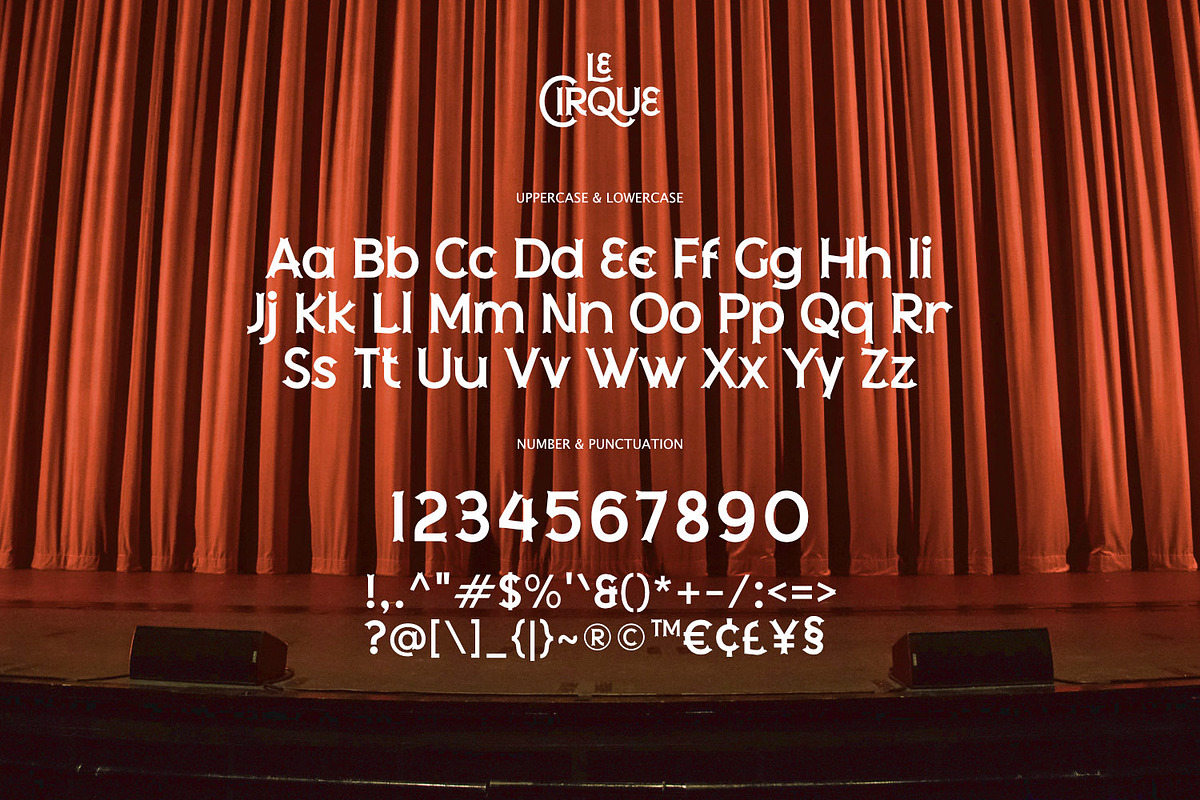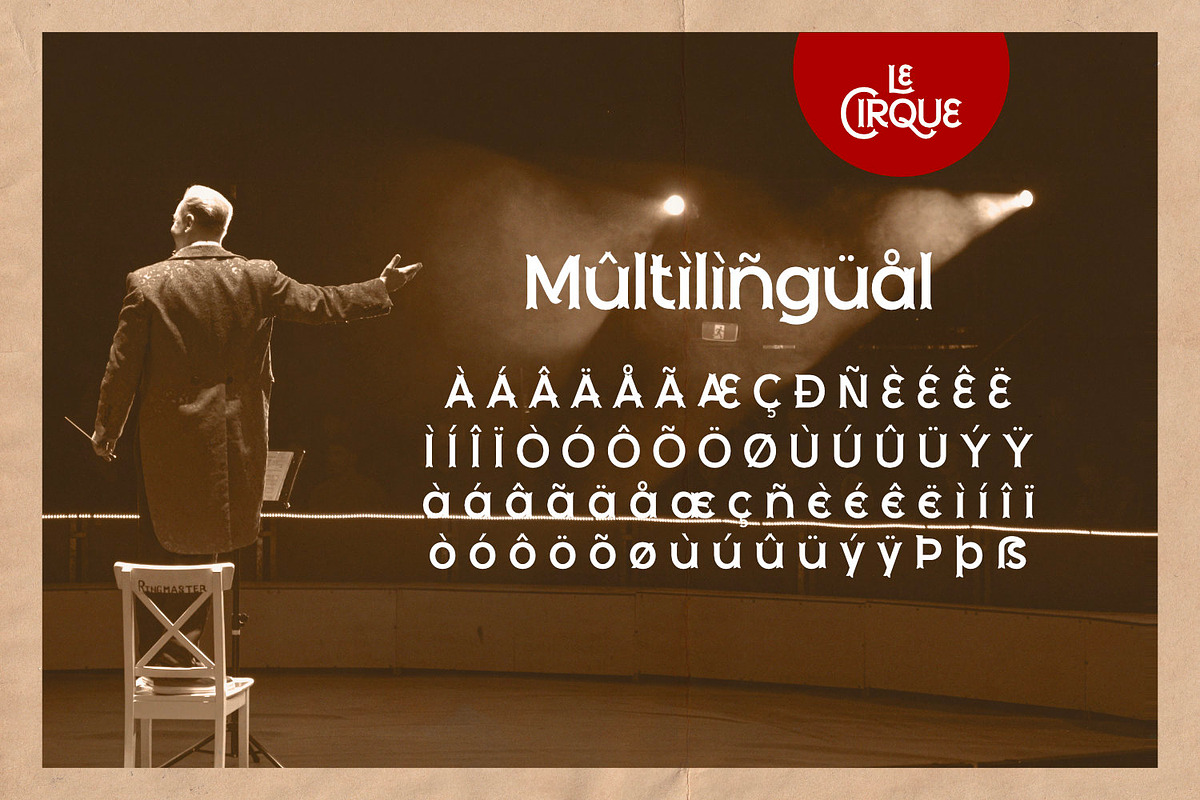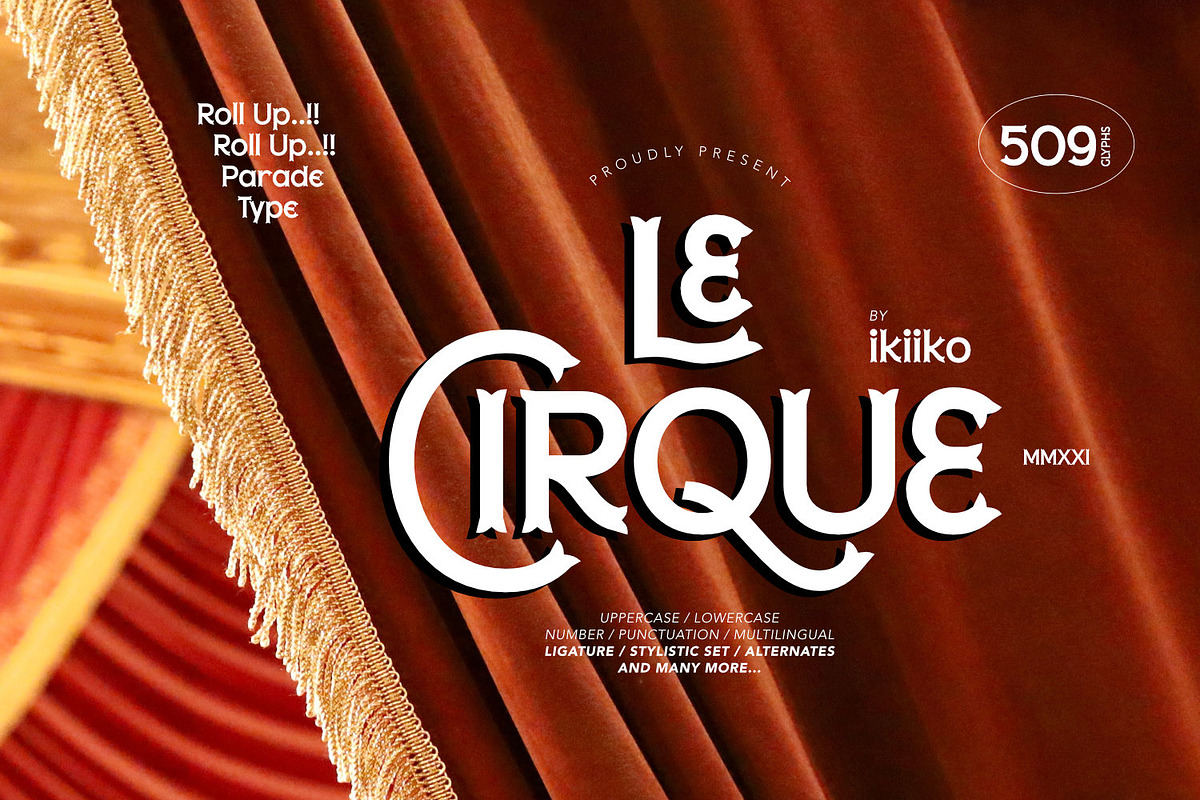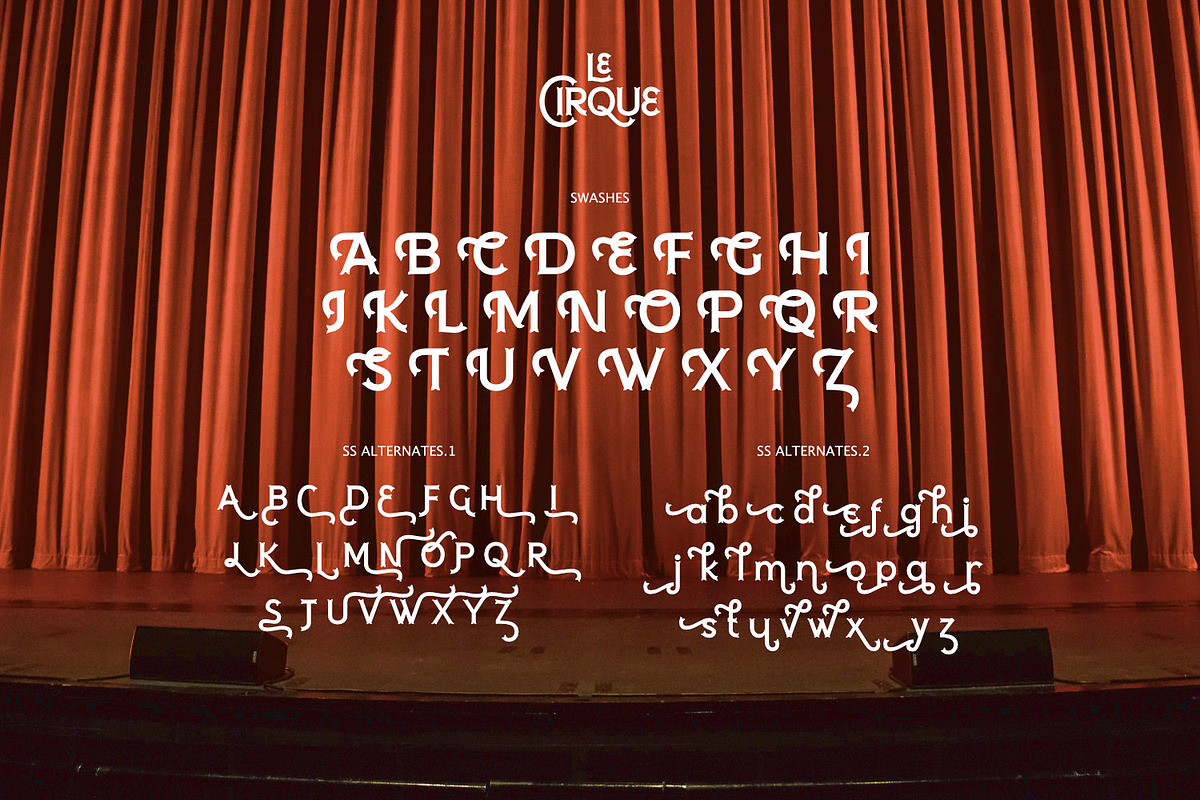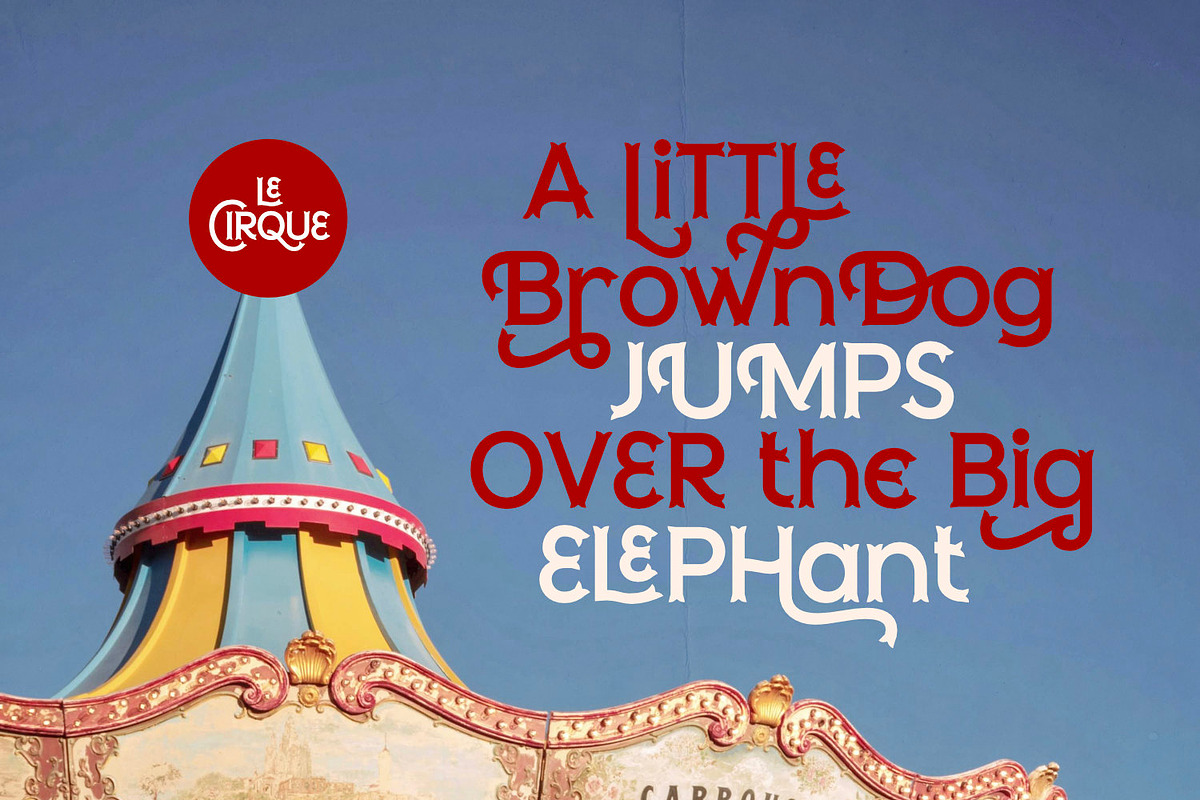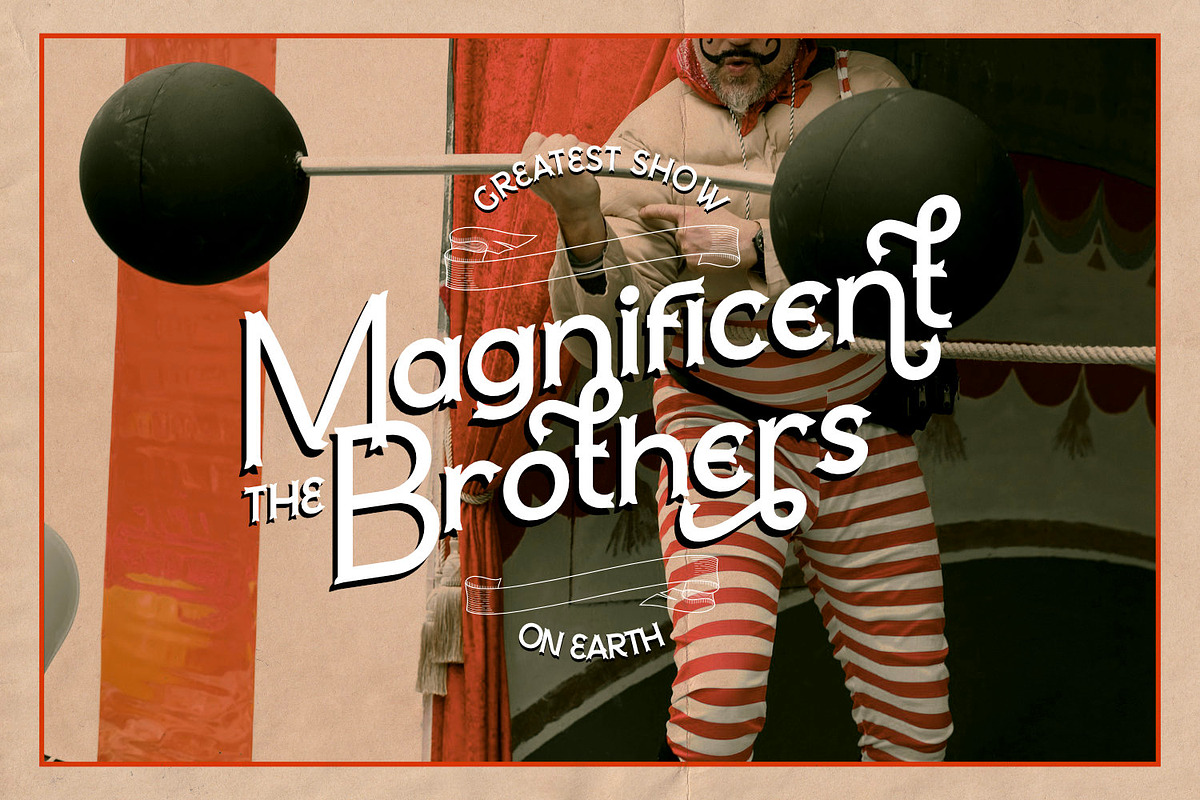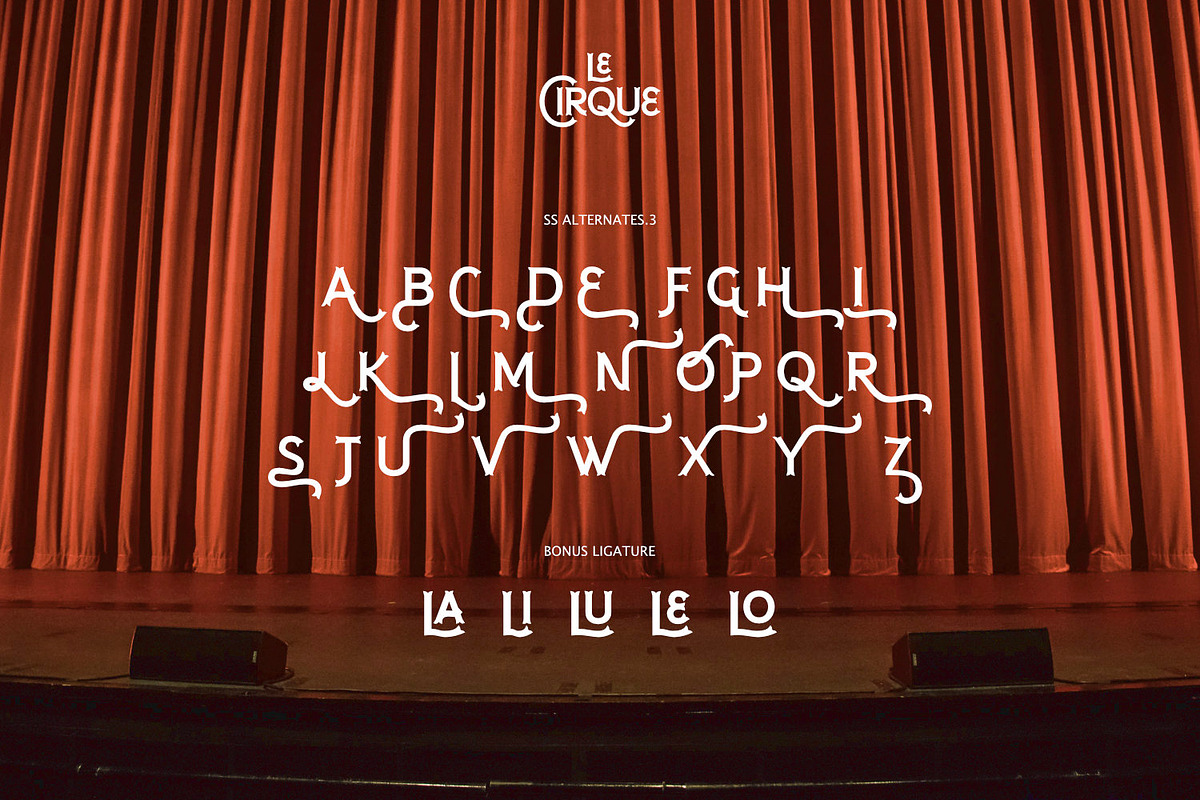
Le Cirque - Parade Type
Roll Up..!! Come and join into Magnificent Tour!!
Introducing Le Cirque - Parade Type, created by ikiiko.
A circus vibes with a touch of vintage stye. Le Cirque has both modern and retro look. The perfect one to create layout design in 60s or 70s design projects. This font have unique stylistic set, alternates and swashes that to give to your brand logo, poster, unique & vintage stuff, and another project to a have unique or vintage look.
- Number & Punctuation
- Complete Stylistic set
- Swashes & Alternates